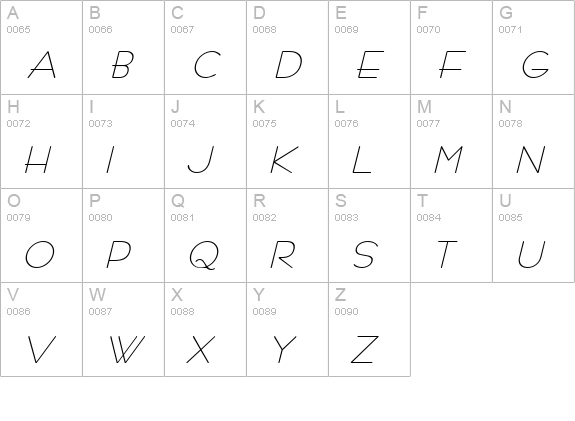
Racetrac Italic is a distinctive, italic variant in the Racetrac typeface family \xE2\x80\x94 well suited to design and typography projects.
Racetrac Italic font is a stunning typeface that exudes elegance and sophistication. Its sleek and modern design is perfect for adding a touch of class to any project. The italicized letters have a distinctive slant that adds a sense of dynamism and movement to your text. With its clean lines and sharp curves, Racetrac Italic font is both eye-catching and legible, making it an ideal choice for headlines, titles, and logos. Whether you're designing a stylish magazine spread or creating a professional presentation, this font will effortlessly elevate your design to the next level. One of the best features of Racetrac Italic font is that it is freely available to download at FontsMarket.com. This means that you can easily access and use this font without any cost or restrictions. Whether you're a professional designer or a hobbyist, having access to high-quality fonts for free is invaluable. So why wait? Download Racetrac Italic font today from FontsMarket.com and start adding a touch of elegance and sophistication to your design projects. With its sleek and modern design, this font is sure to make a lasting impression.